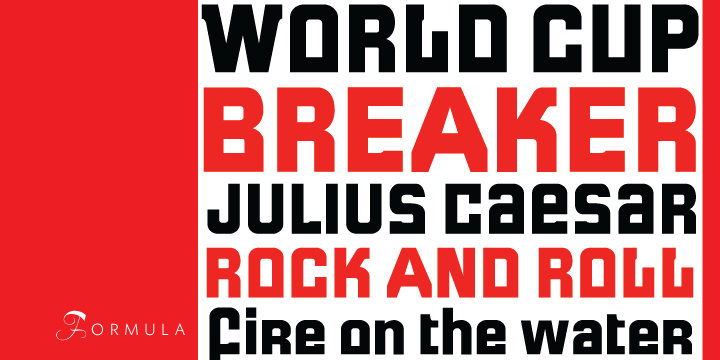
Formula
Formula is a display sans font family. This typeface has three styles and was published by Canada Type.
Formula is one of those typefaces that never get tired of being modern, in spite of its roots being in early- to mid-twentieth century ideas.
Formula is one of those typefaces that never get tired of being modern, in spite of its roots being in early- to mid-twentieth century ideas. Perfect for music sleeves, signage, and all around titling settings. Comes in three interchangeable variations, a regular, an alternative small cap, and a unicase.